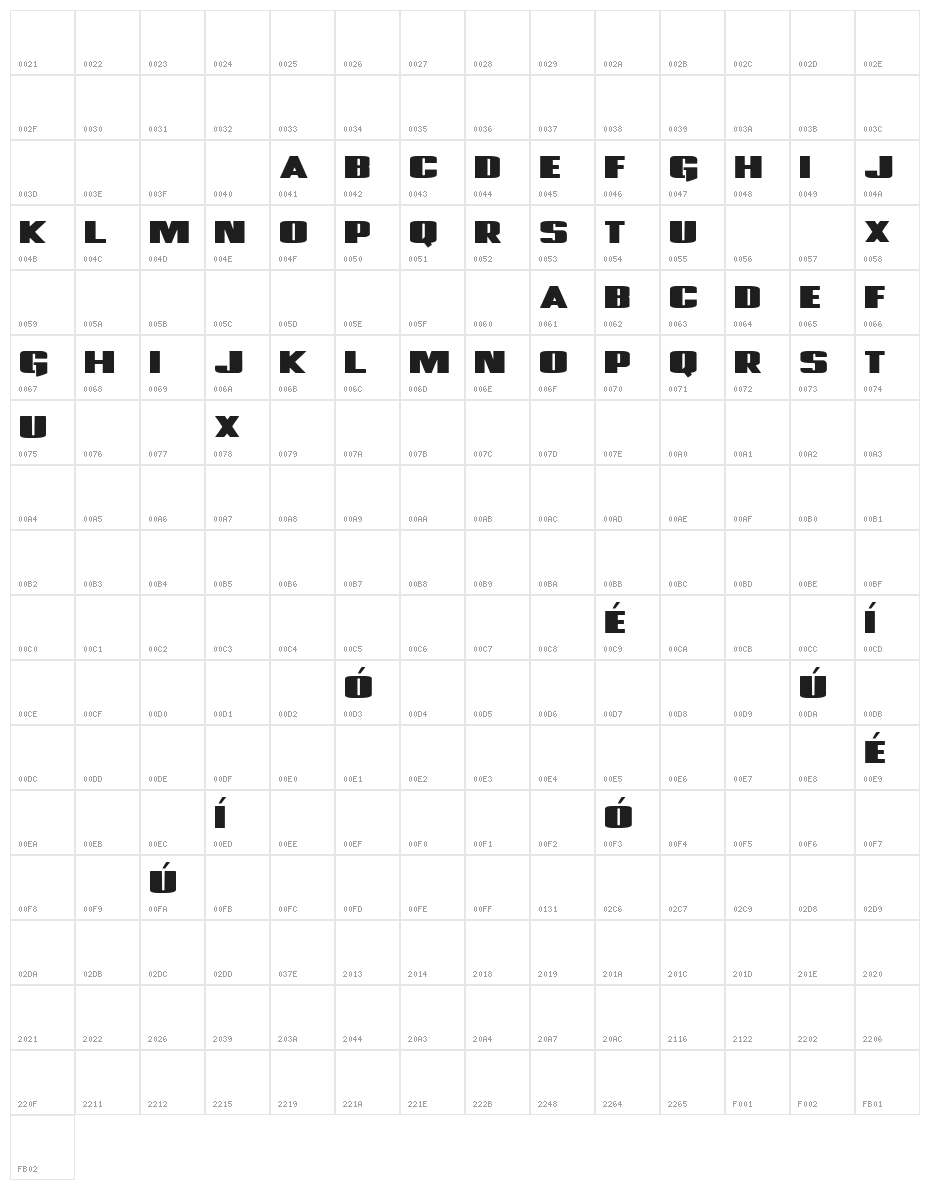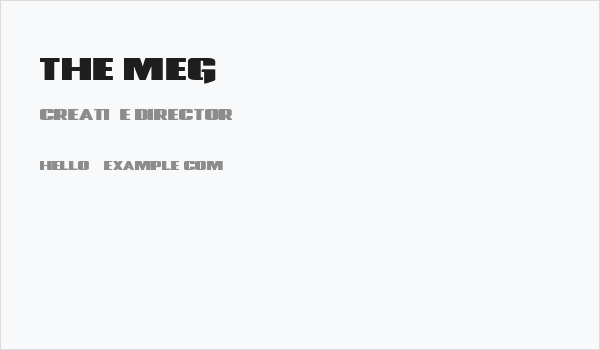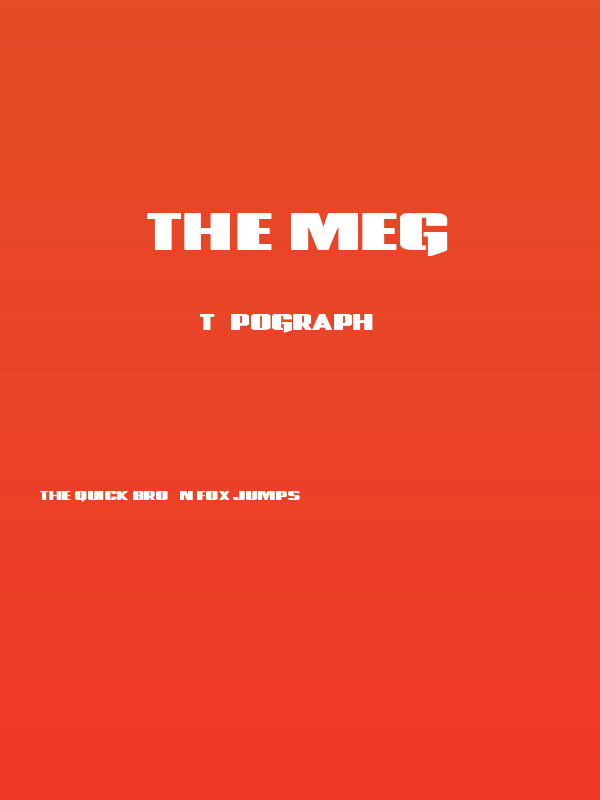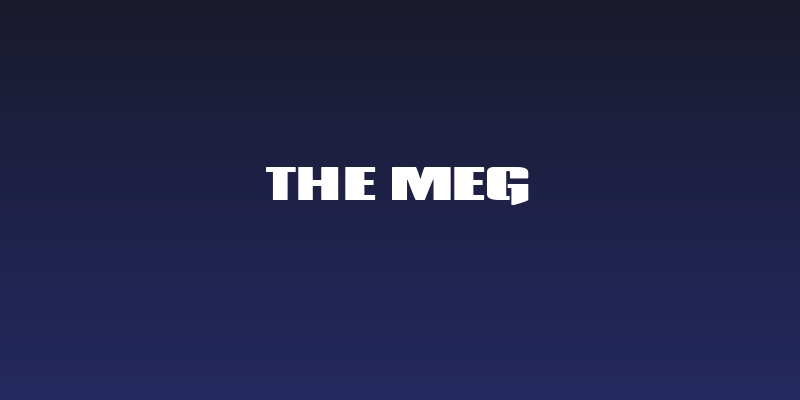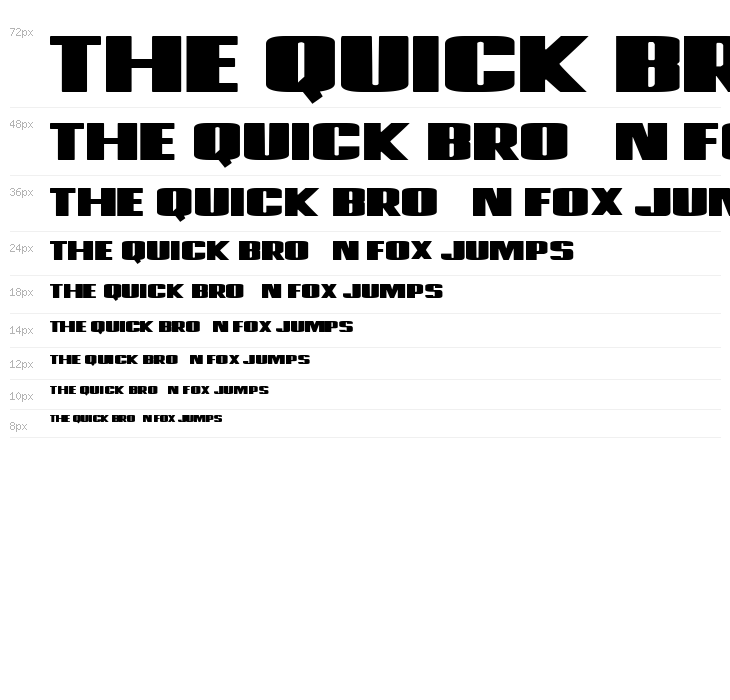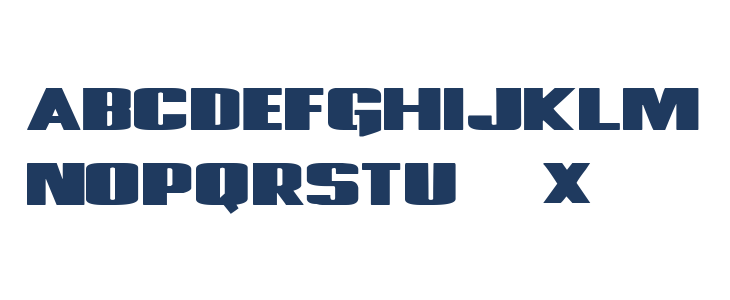
The Meg Font
The Meg Description
This font features bold, blocky characters with a strong, impactful presence. The letters are uniformly wide, with a slight angular cut that adds a unique, edgy feel. The overall design is geometric and modern, making it suitable for attention-grabbing headlines or titles. The uppercase letters are particularly striking, with consistent height and width, creating a cohesive and balanced look. The absence of serifs and the solid, filled-in style contribute to its bold appearance, making it ideal for projects that require a strong visual impact.
| Proposed Projects | Ideal for posters, logos, headlines, and branding materials that require a strong visual impact. |